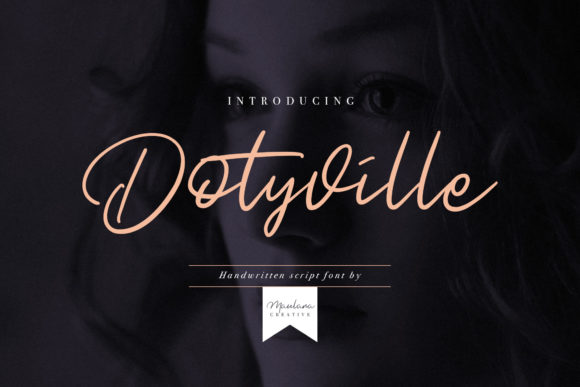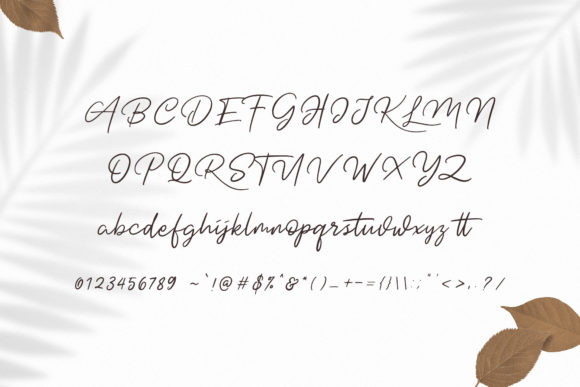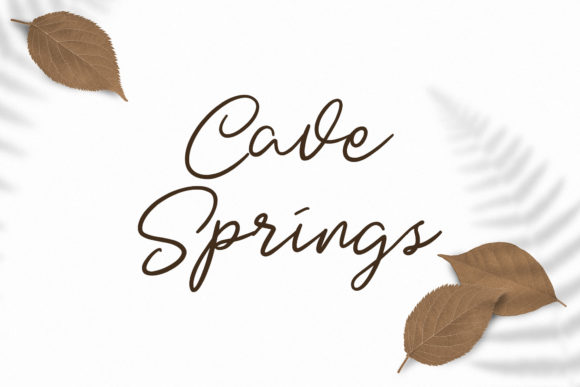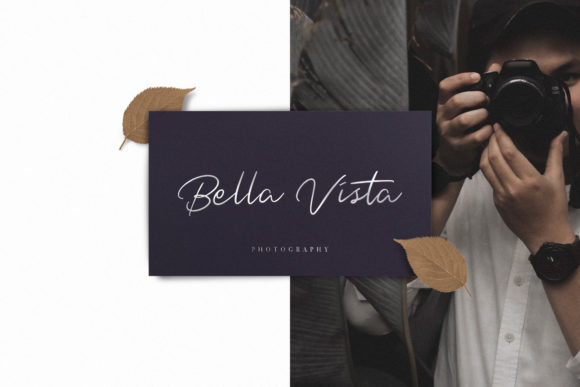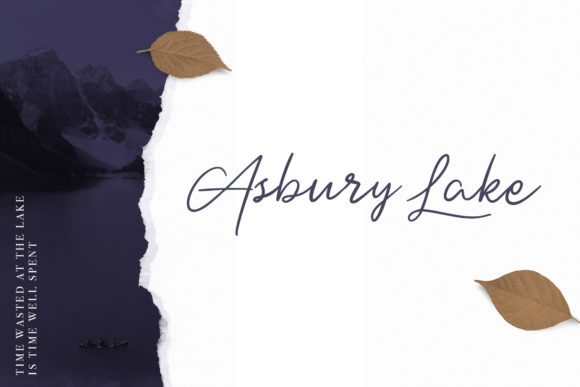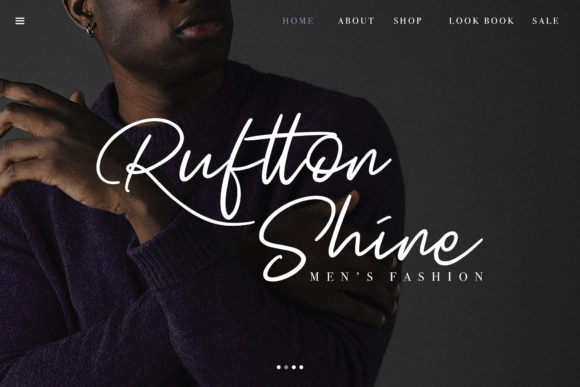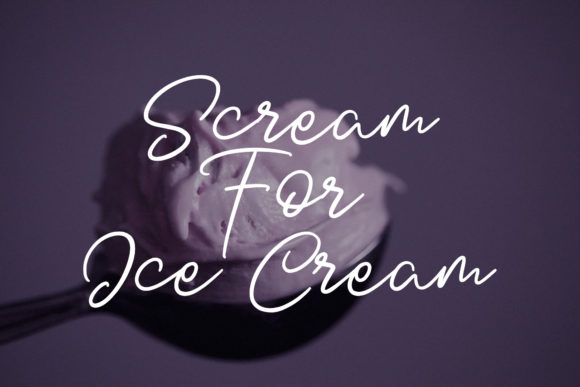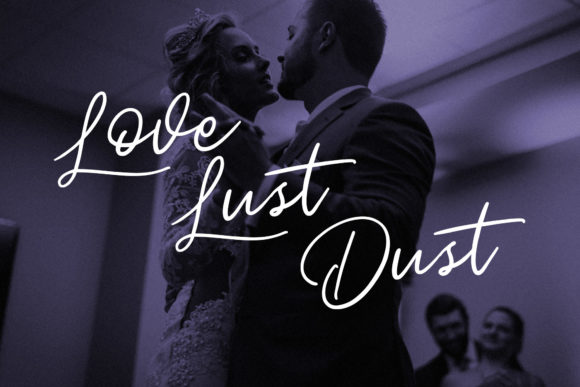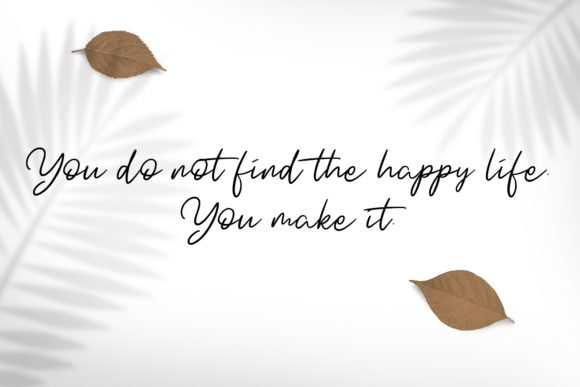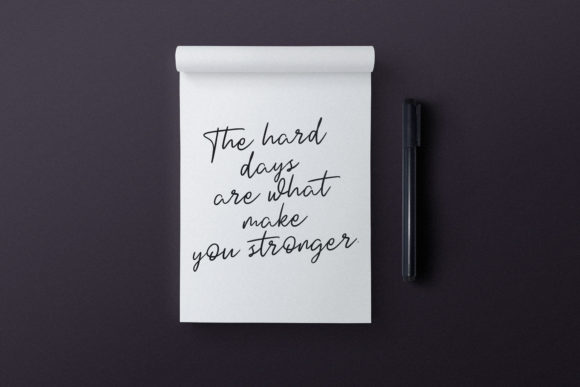
Dotyville Font
About Dotyville Font
Dotyville is a modern and charming handwritten font with a bold style. Use it to add a unique charm to any design project!